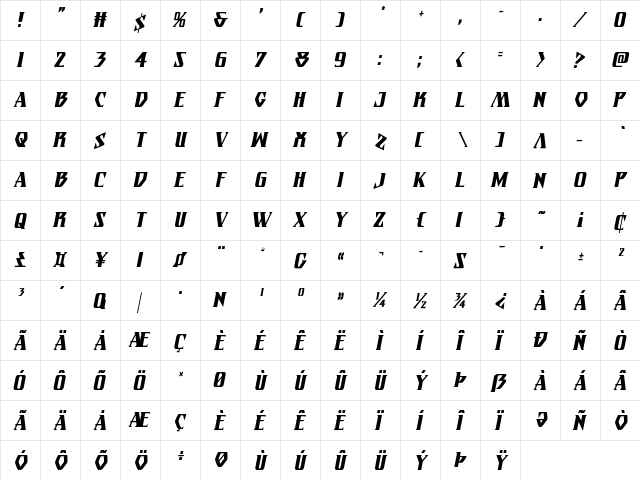
Eternal Knight Condensed Italic Font Preview
Design Context for Eternal Knight Condensed Italic Typeface
Eternal Knight Condensed Italic offers clean, dependable letterforms without strong stylistic allegiance, making it a practical choice for designers who need flexibility. The slanted form adds forward momentum and visual energy. Its narrow stance lets it pack a punch even in space-constrained designs.
Pro Tip: Use Eternal Knight Condensed Italic for emphasis, pull quotes, and subheadings where its slanted energy can add rhythm to the layout.